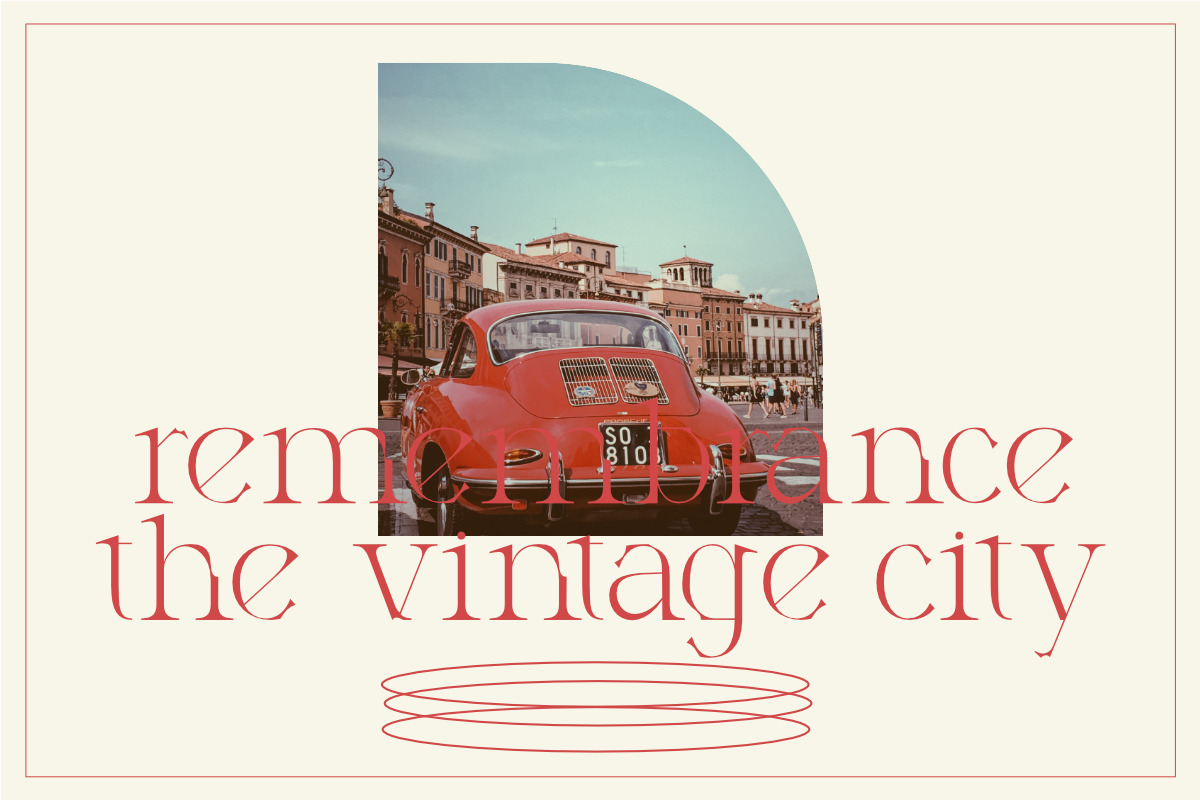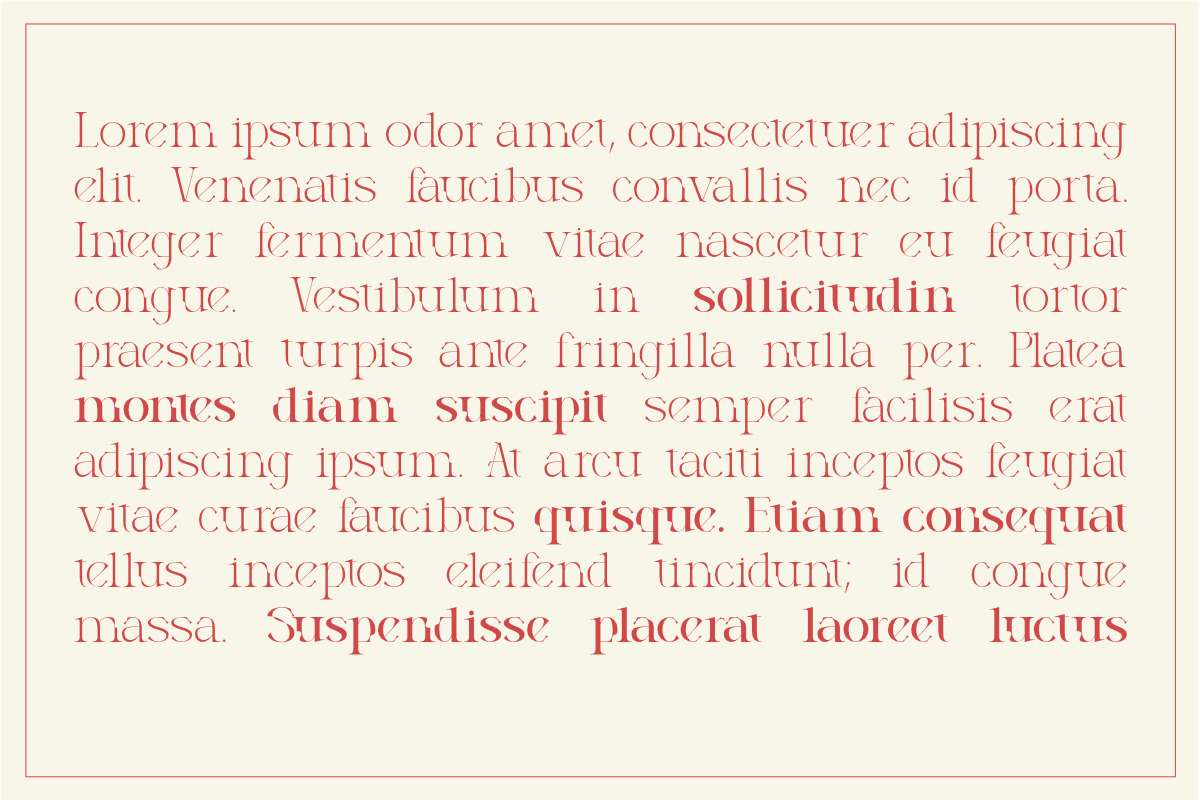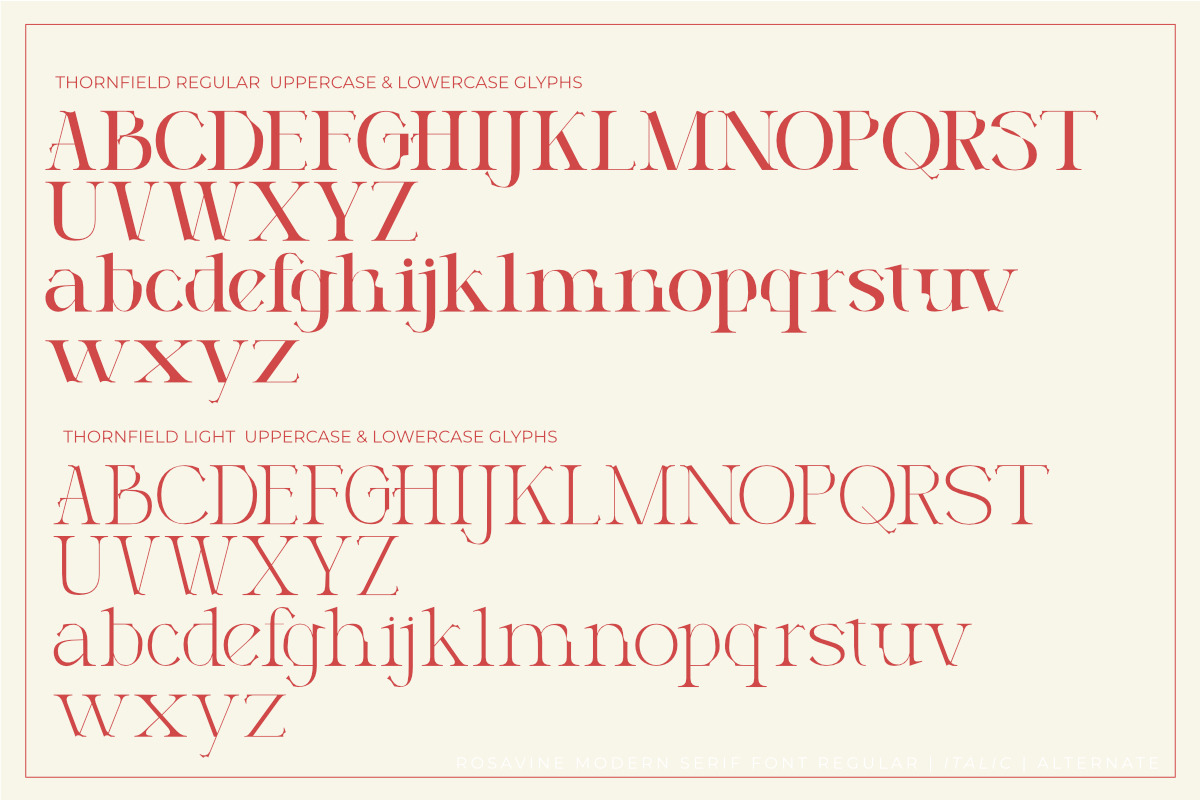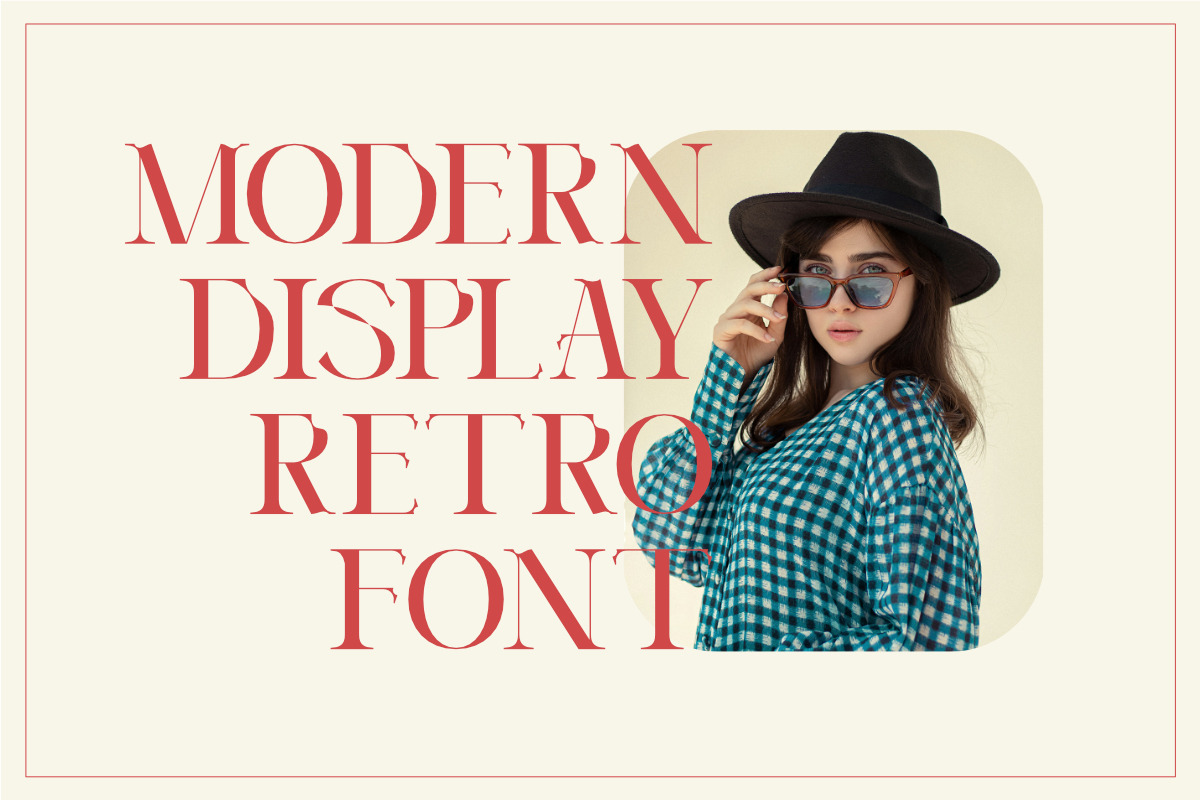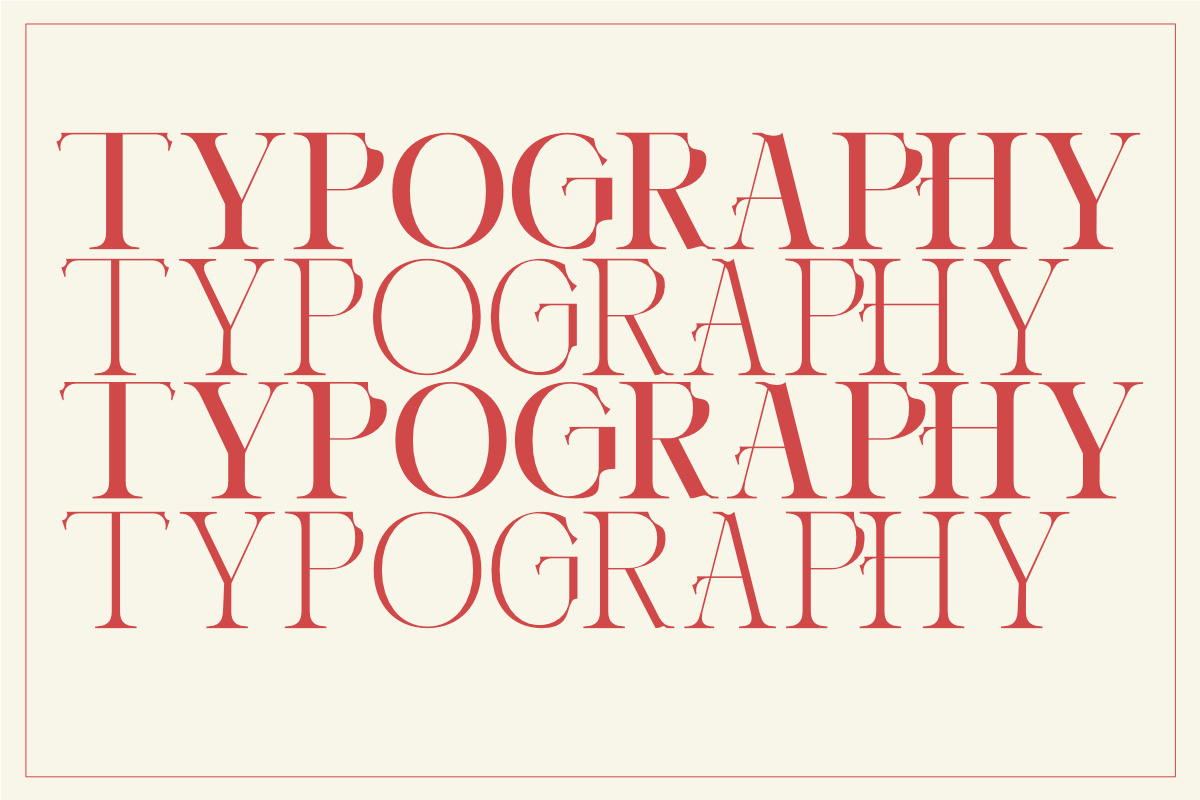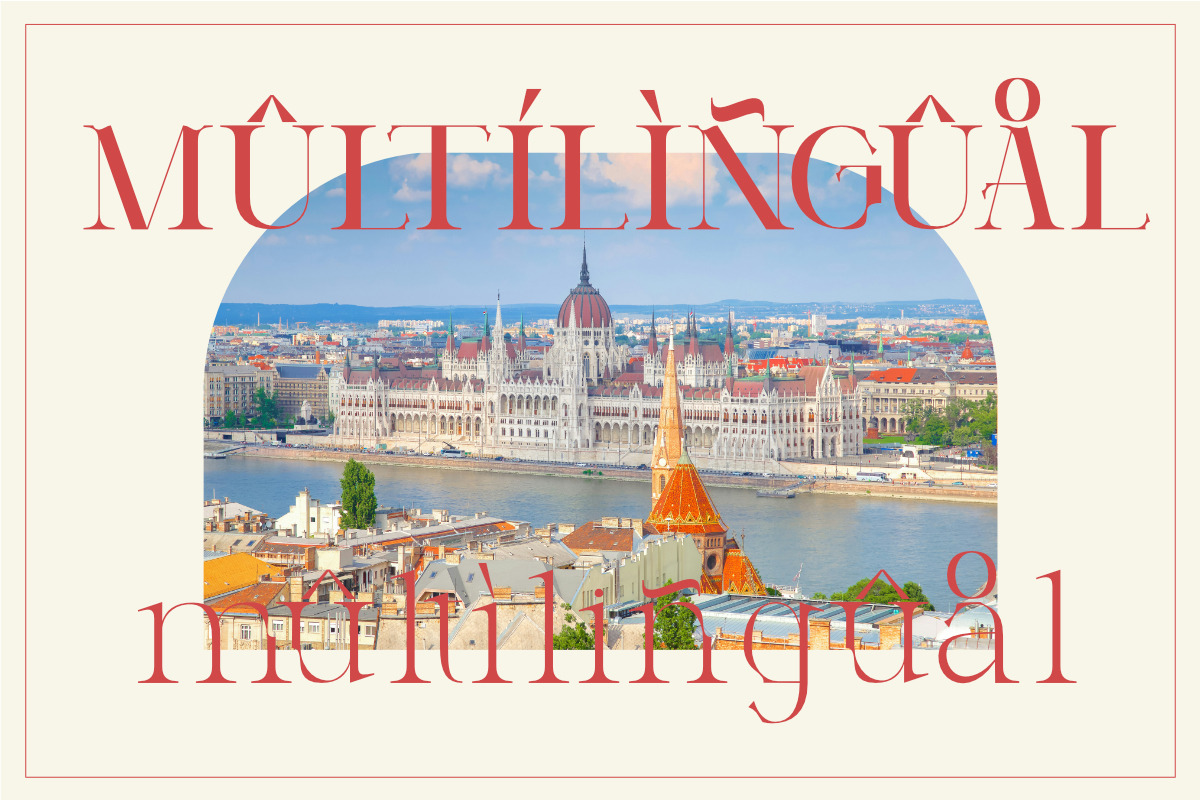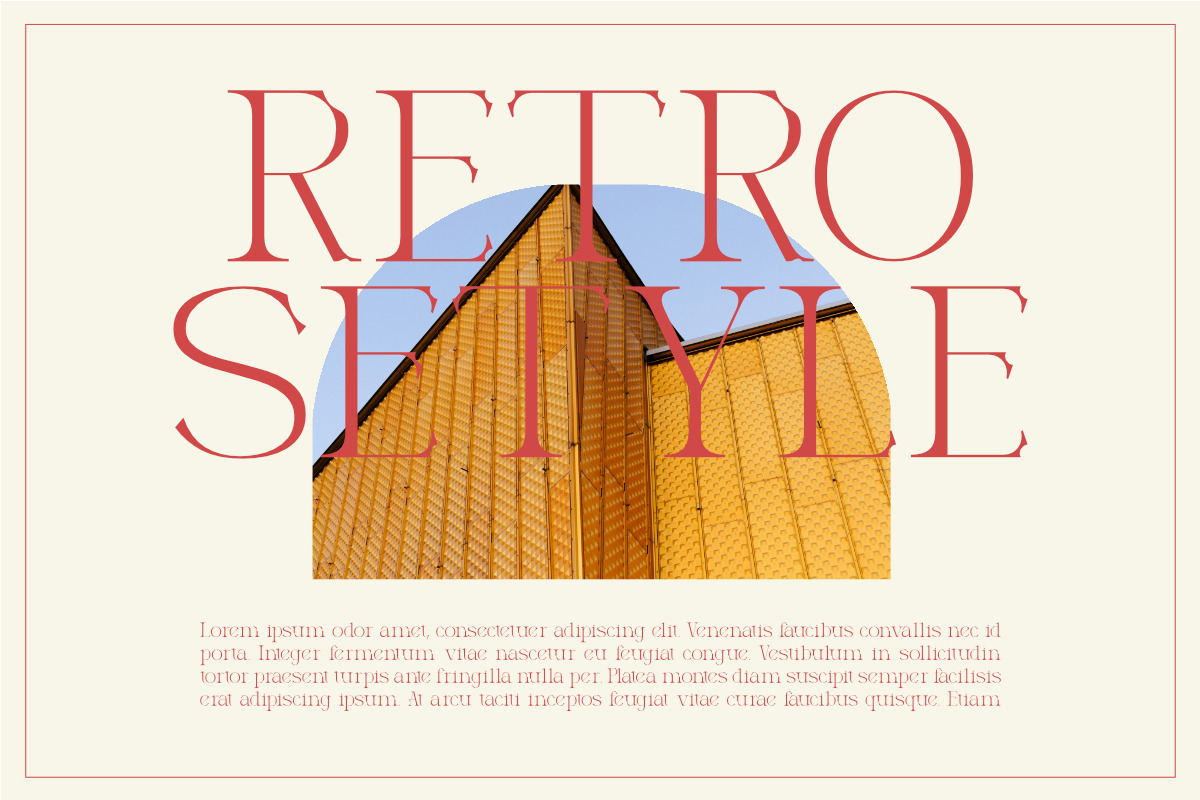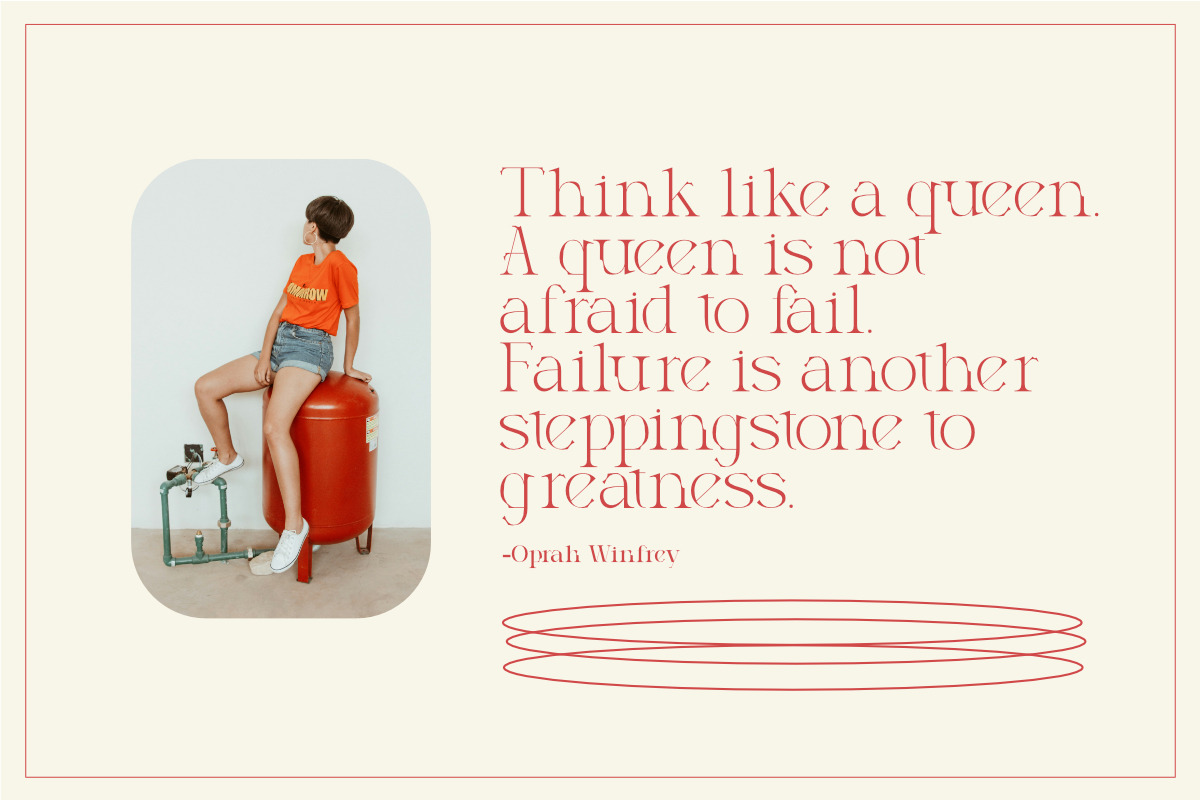
Thornfield
Thornfield is a modern retro and vintage-style font that brings a touch of classic charm blended with contemporary appeal. Carefully crafted with a unique and elegant character, Thornfield comes in two distinct styles: Regular and Light, offering versatility for a wide range of creative projects.
The font is distinguished by its refined letterforms with subtle ornamental details, creating a perfect balance between nostalgic beauty and modern sophistication. Thornfield is ideal for branding, posters, book covers, packaging designs, invitations, and editorial works that require a timeless and elegant atmosphere.
Whether used for large headlines or smaller body text, Thornfield maintains its clarity and distinctive style, making every design stand out.
Features: Uppercase & lowercase Multilingual support Alternates & ligatures Punctuation & symbols